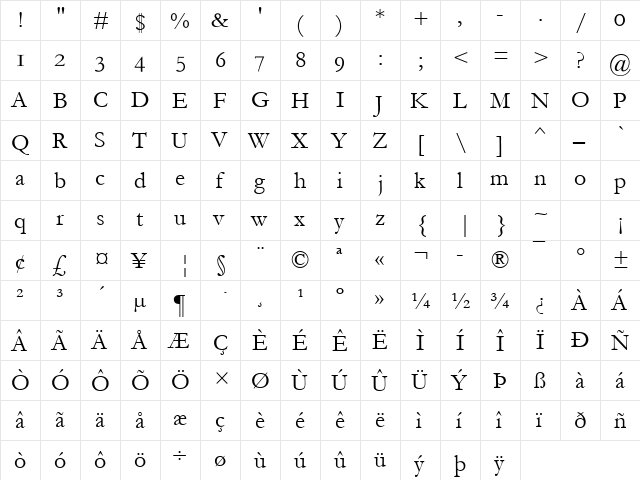
jGaramond Regular
| Designer | Claude Garamond (1480 - 1561) |
Design Context for jGaramond Typeface
jGaramond takes a measured approach to typography — its balanced proportions and neutral character make it a reliable workhorse for both digital and print work.